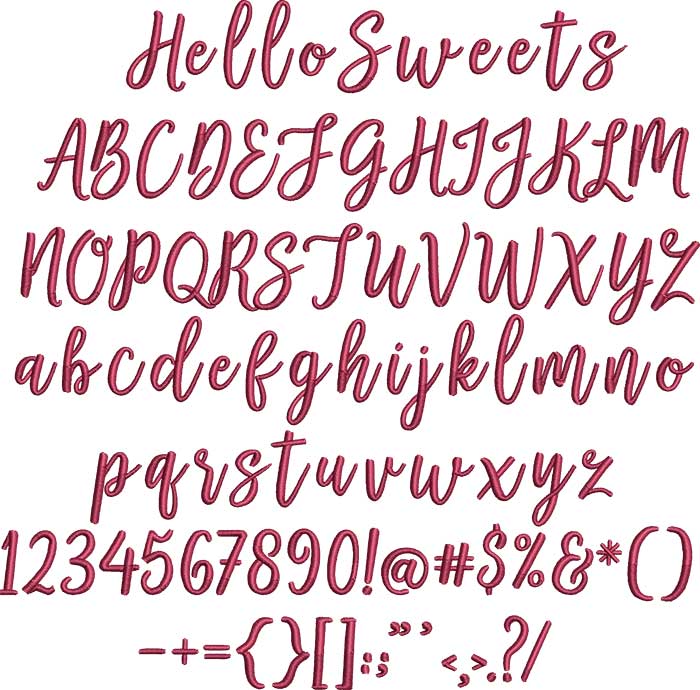
BX Embroidery Font: Hello Sweets
BX Embroidery Font: Hello Sweets (4 sizes) is a casual, handwritten italic script machine embroidery font that includes A-Z, a-z, 0-9 and punctuation; 4 sizes.
BX Embroidery Font: Hello Sweets (4 sizes) is a casual, handwritten italic script machine embroidery font that includes A-Z, a-z, 0-9 and the following punctuation: !@#$%&*()-+={}[]|:;”‘<>,.?/ (90 total characters per size). 4 sizes.
Each character in this alphabet is individually manually digitized; we do not use a TrueType to Stitches conversion utility to create our fonts. Additionally, stitch attributes such as stitch type, density, compensation, and underlay are optimized for each size available. Choose the size closest to what you need. Shrinking the smallest size is not recommended.
Our fonts were manually digitized; we do not use a TrueType to Stitches conversion utility to create our fonts. Plus, stitch attributes such as density, compensation, and underlay are optimized for each size available.